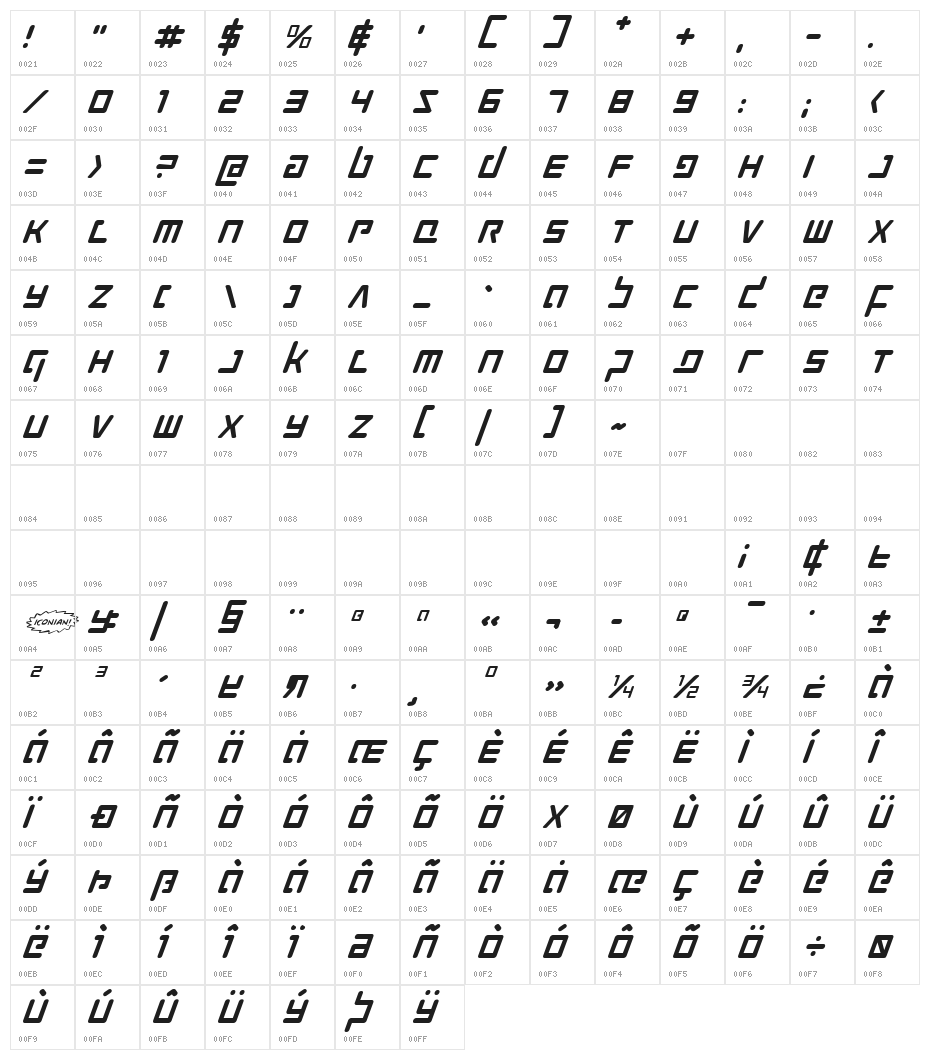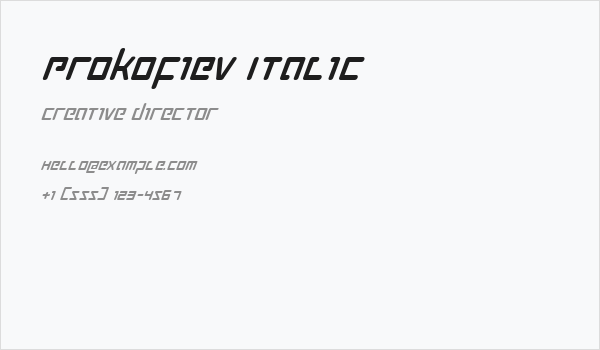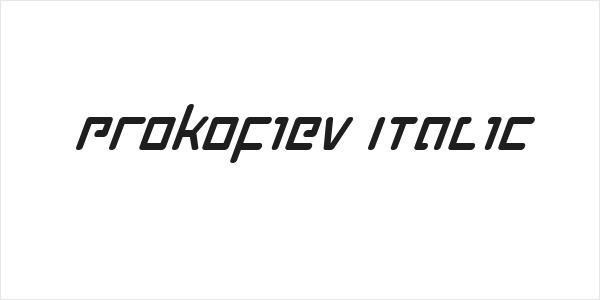
Prokofiev Italic Font
Prokofiev Italic Description
This font features a sleek, modern design with a distinct italic slant, giving it a dynamic and forward-moving appearance. The characters are uniformly structured with a geometric influence, showcasing rounded edges and consistent line thickness. The uppercase and lowercase letters maintain a cohesive style, while the numerals and special characters complement the overall aesthetic. The font's futuristic vibe makes it suitable for contemporary design projects, offering a unique blend of readability and style.
| Use Case | Headlines, Logos, Digital interfaces |
| Proposed Projects | Ideal for technology branding, modern advertising, and digital interfaces. |